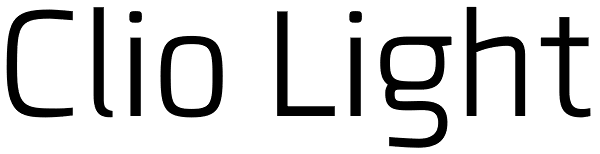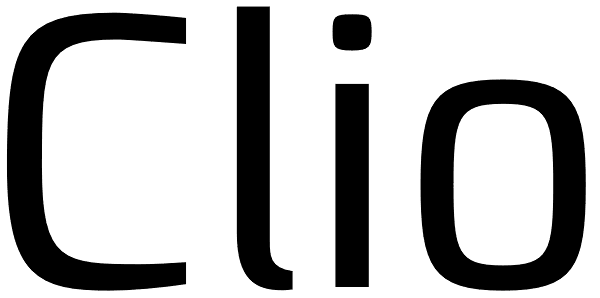
Clio
Clio, Clio XS and Clio Condensed —each available separately— is a big family of 72 fonts. They were designed by Gabriel de Souza in 2012. They are simple and stylish and they have the ideal appearance to your work. Furthermore, features such as...